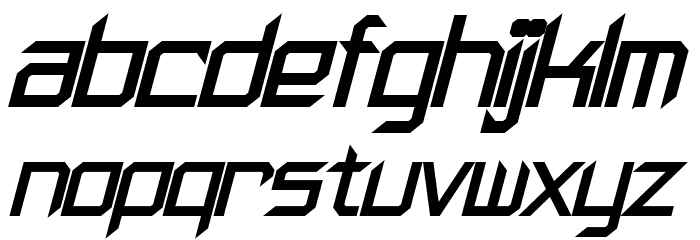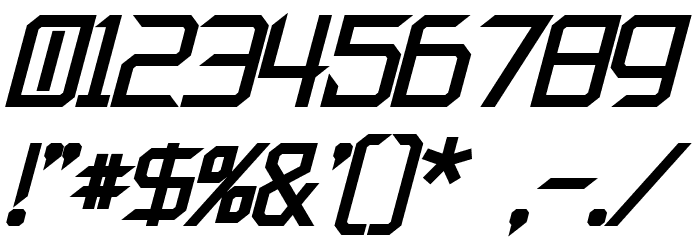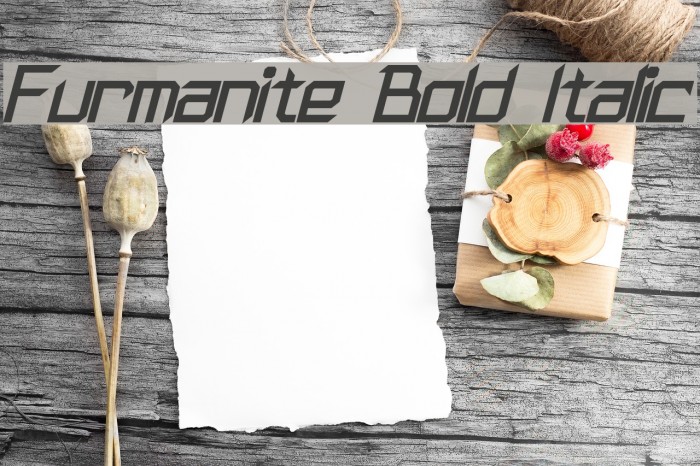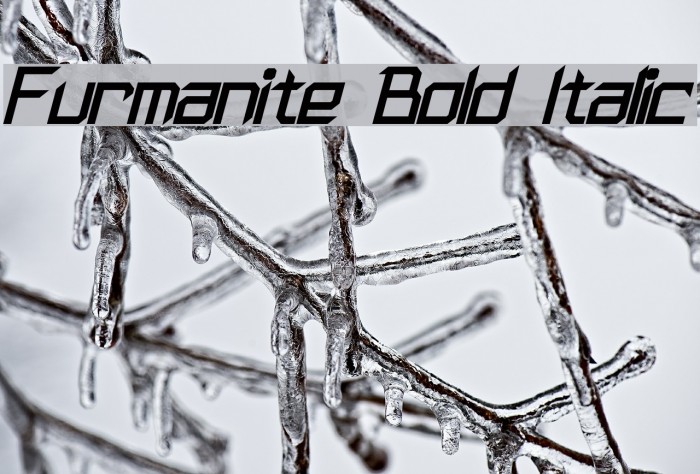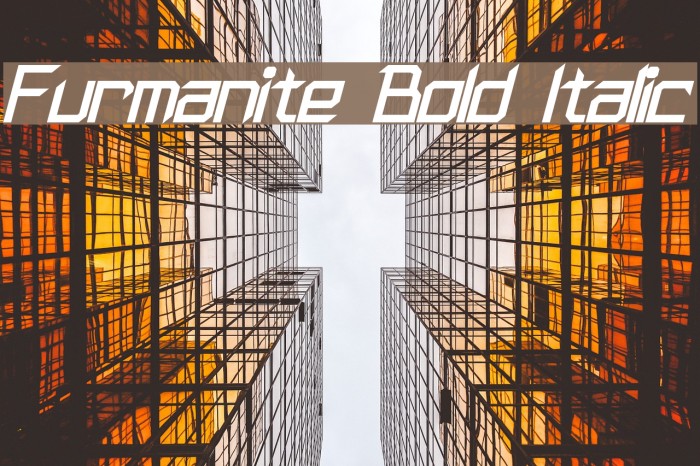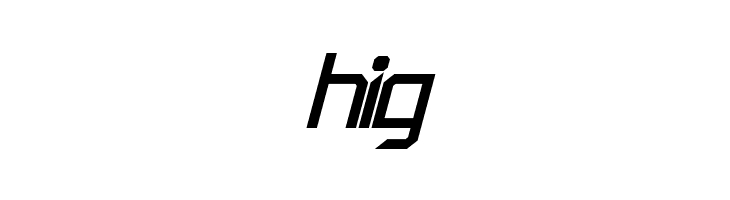
Furmanite Bold Italic Font
This font features a bold and italicized style with a futuristic and angular design. The characters are sharply defined with a distinct slant, giving a sense of motion and speed. The uppercase and lowercase letters maintain a consistent geometric structure, while the numerals and special characters complement the overall aesthetic. The font's boldness is emphasized by thick strokes and sharp edges, making it stand out in any design. Its unique style is suitable for projects that require a modern and dynamic look.
A bold, italicized font with a futuristic and angular design.
- Proposed Projects: Ideal for technology branding, sports team logos, video game titles, and sci-fi themed posters.